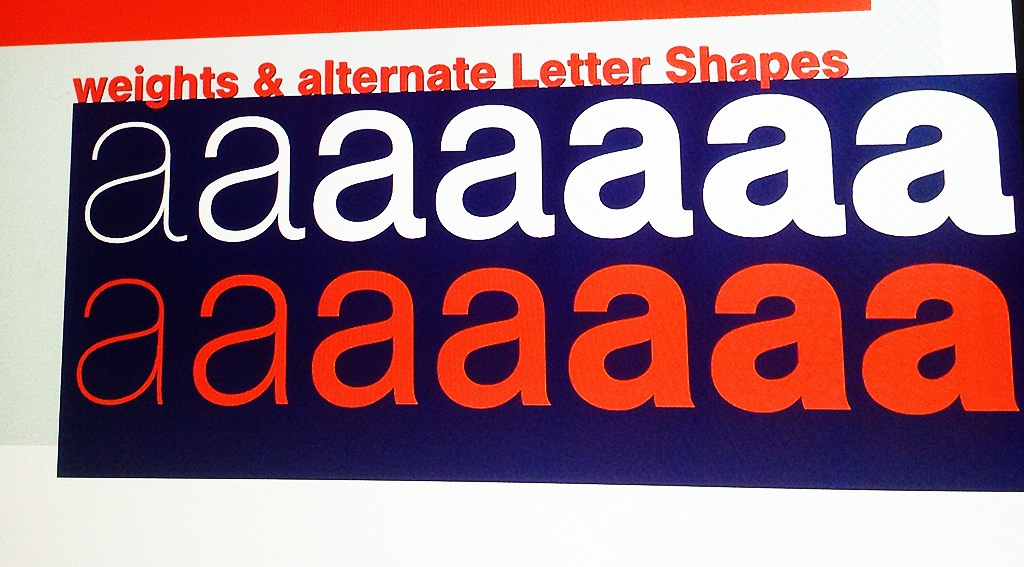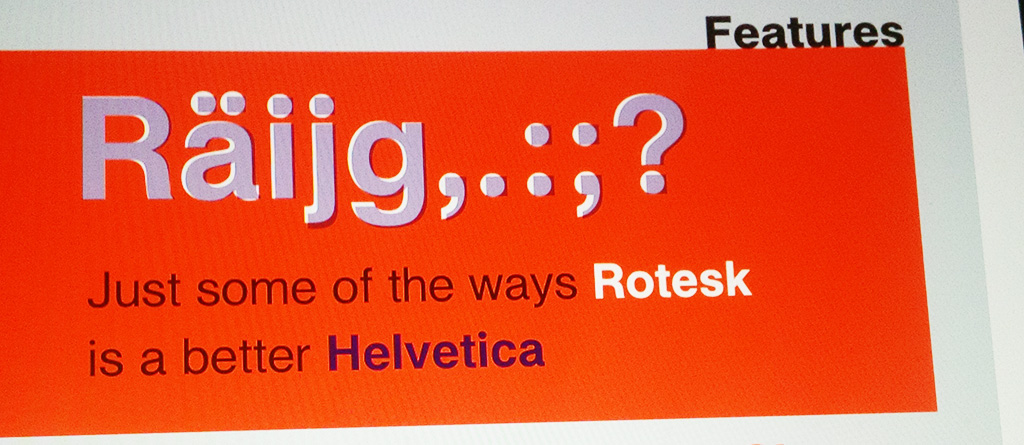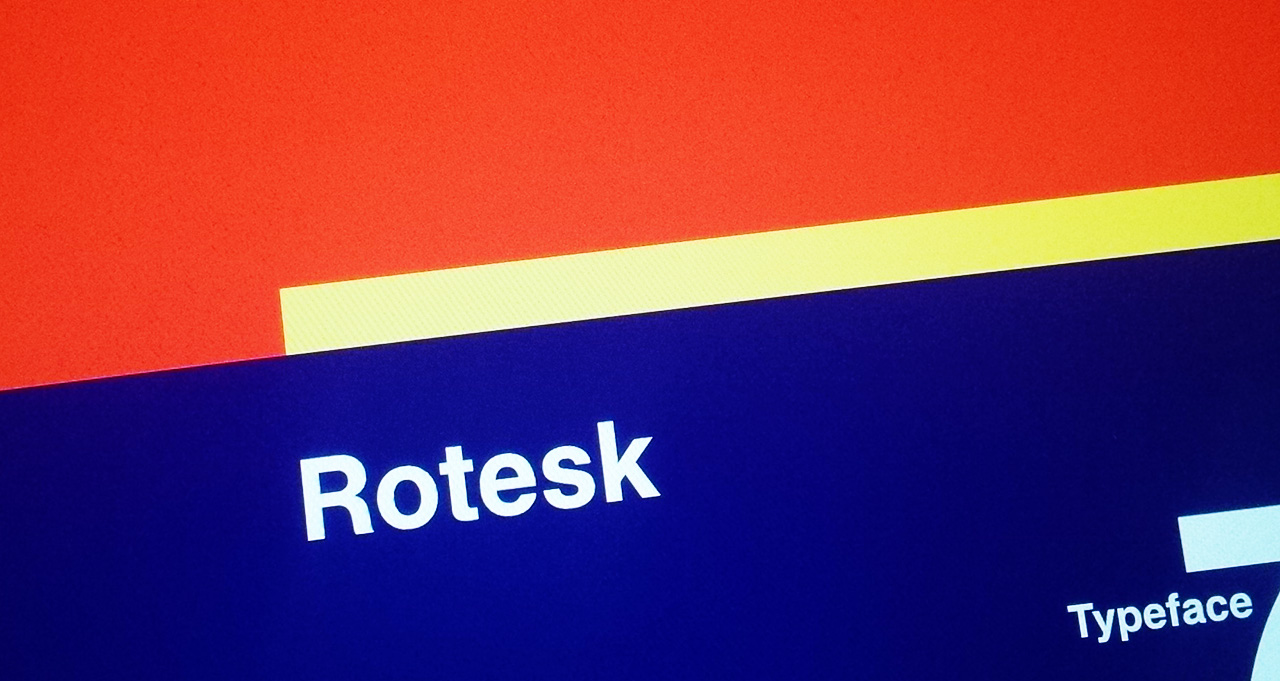
Rotesk
Typeface Created January 2016, last updated 01 September 2021 My own Helvetica with rounded dots!
Overview of the 14. Decemeber 2016 Changes to Rotesk
Lowercase a:
1. Hairline Weight completely re-drawn.
2. Regular Weight: adjusted shape of lower counter bar
3. Bold Weight: straightened out stem-attachment (in departure from BQ-inspired version), made bottom curve thinner.
4. Black Version: Moved counter up, rounded general shape
Lowercase t:
1. slightly taller overall height across all weights
Lowercase e:
1. several improvements to shape across all weights
Overview of the 13. Decemeber 2016 Changes to Rotesk